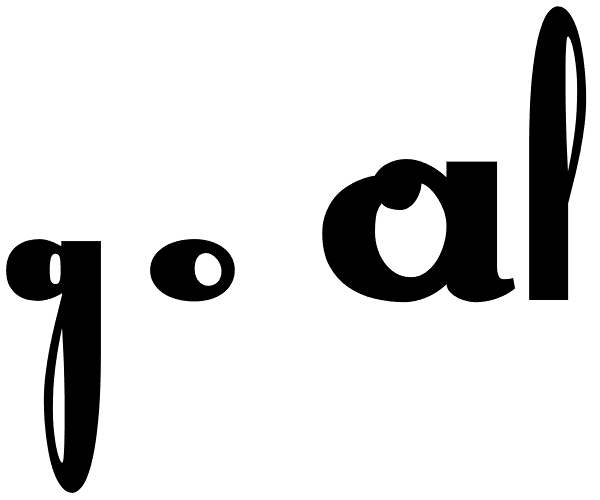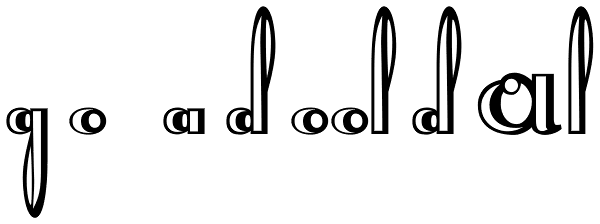
Lexington
A revival and major expansion of a 1926 Ludwig Wagner Schriftgiesserei typeface called Titanic, Lexington is the ultimate art deco expression of the high times of signage and theater during the first half of the twentieth century. Big feminine caps...
Lexington Handtooled
Lexington
Lexington Alt
Lexington Handtooled Alt